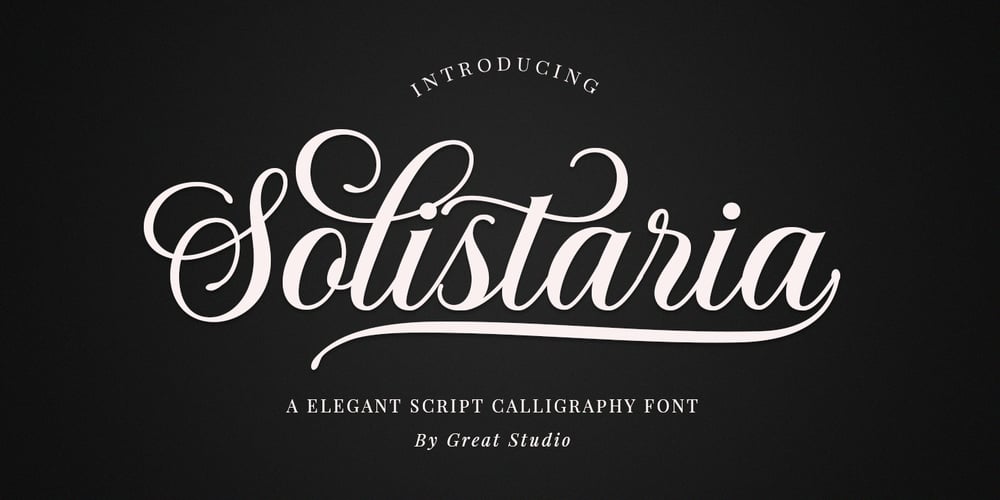
Solistaria Script
Solistaria Script font
Solistaria Script Font Family was designed by Mulkan Nazir and published by Great Studio. Solistaria Script contains 2 styles and family package options. Solistaria Script is new quality calligraphy font with modern and vintage touches. Inspired by a mixture of copper calligraphy with hand-lettering style. OpenType feature includes Stylistic Alternatives, Swash, Ligatures, Stylistic sets. It allows you to mix and match letter pairs to fit your design, and also comes with modern ornaments to make this font look elegant and perfect. Solistaria Script is attractive, smooth, clean, feminine, sensual, glamorous, simple and very easy to read. The classic style is perfect to be applied in various formal forms such as invitations, labels, menus, logos, fashion, make up, stationery, letterpress, romantic novels, books, greeting/wedding cards, packaging, labels, and more.Solistaria Script can be used in Adobe Illustrator, Adobe Photoshop, Adobe InDesign, Corel Draw X version, Microsoft Word.Language Support : Albanian, Basque, Breton, Chamorro, Danish, Dutch, English, Faroese, Finnish, French, Frisian, Galician, German, Icelandic, Italian, Malagasy, Norwegian, Portuguese, Spanish, Swedish.